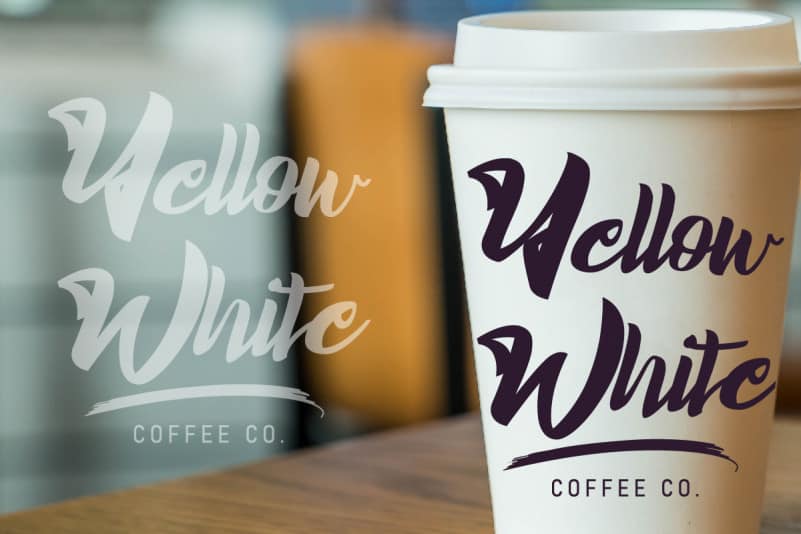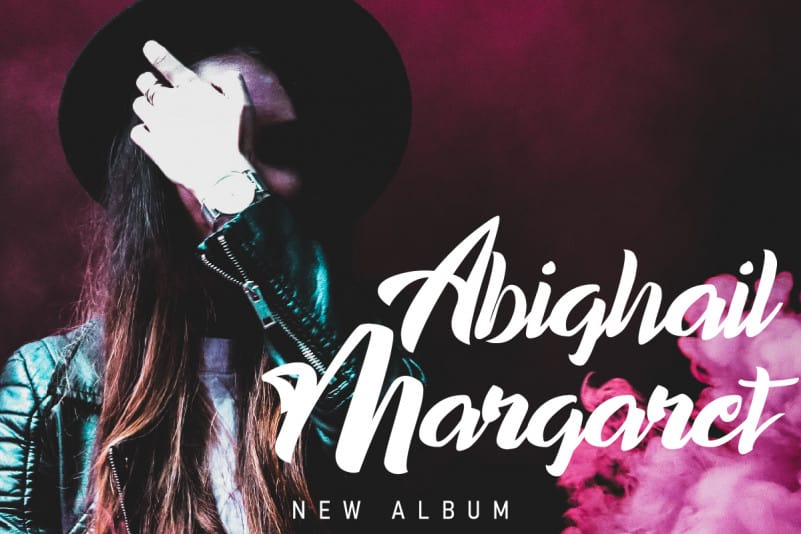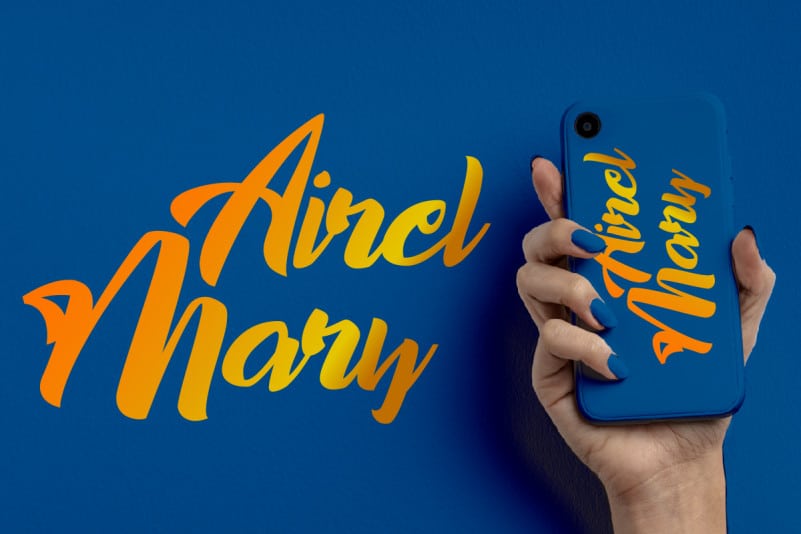
Insightful Brush Font
Insightful Brush Font is a brush script font with unique bold lines. This font is crafted carefully in every its single scratch, created to look as close to a natural handwritten script so that it can create the perfect combination on each glyph. When we make this font, we really want to create a touch that is so free-flowing that it gives a natural impression on its use later. For example, if you want letter ‘s’ that has a flow sketch with letter ‘t’, you can find it in ‘st’ ligature glyph (just type in the text form below for trying). This awesome script is for anyone who are needing of elegance and stylish for their designs.
Insightful Brush Font includes full set of Uppercase and Lowercase Basic Characters, Numerals and Punctuation. Also it contains ligatures and a lot of stylistic alternates characters to perfectly make natural calligraphy look that add more beautiful and aesthetic fonts to perfect your extraordinary project. It will be great for headline, social media, advertising, invitation, flyer, logotype etc